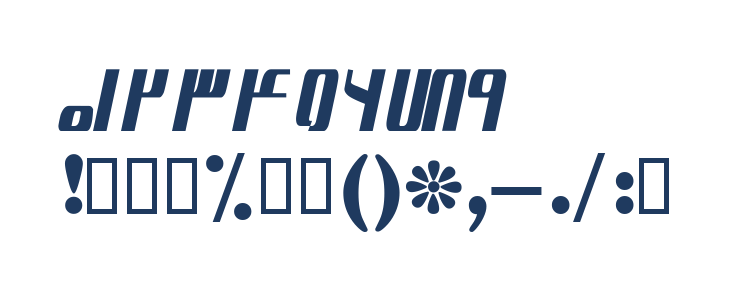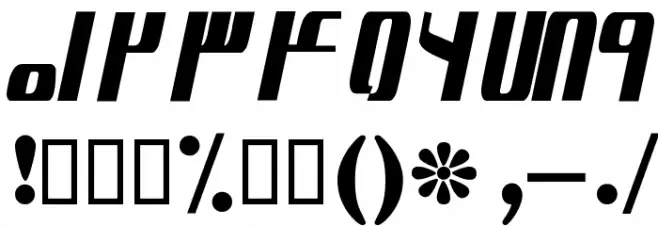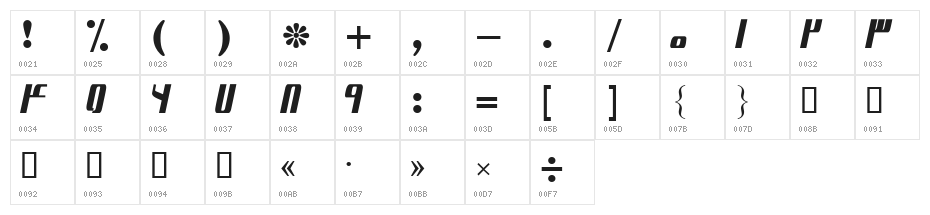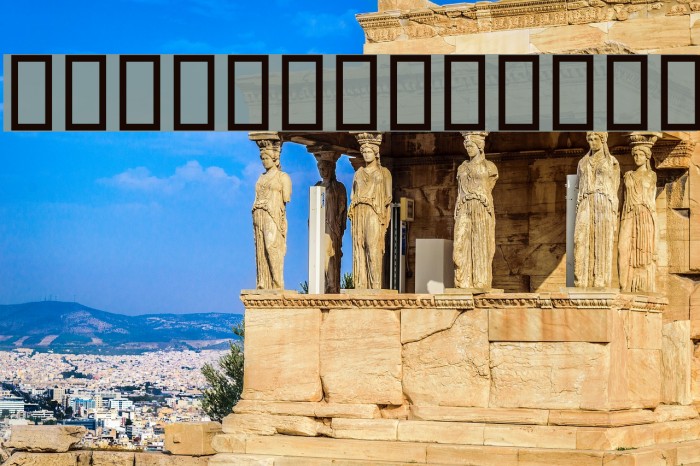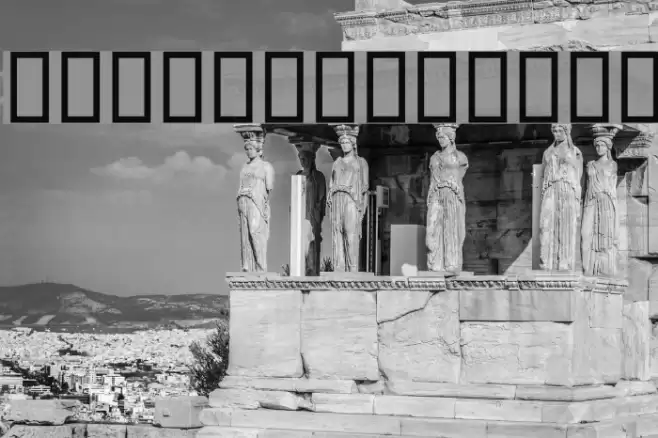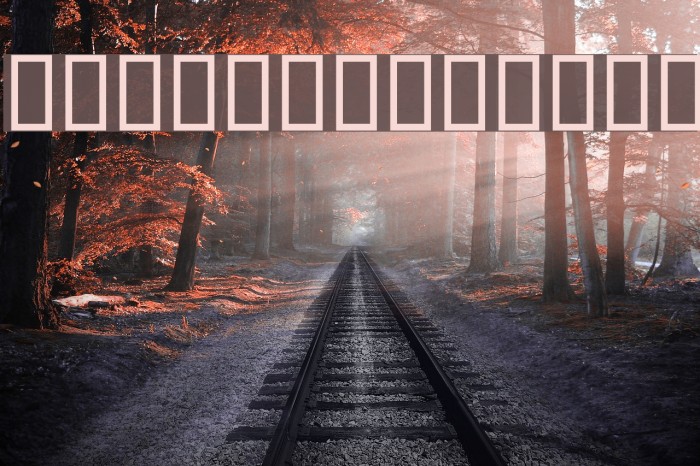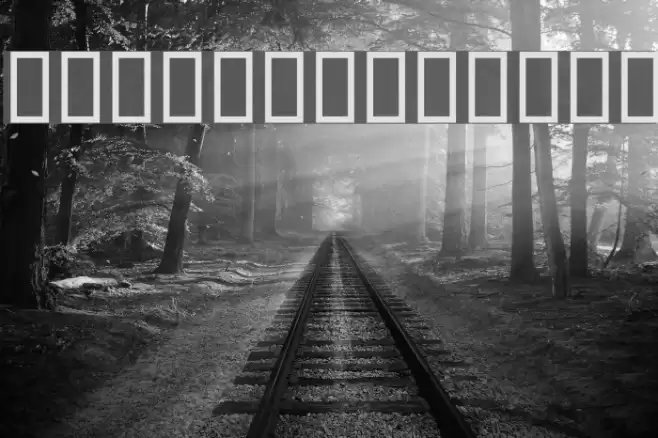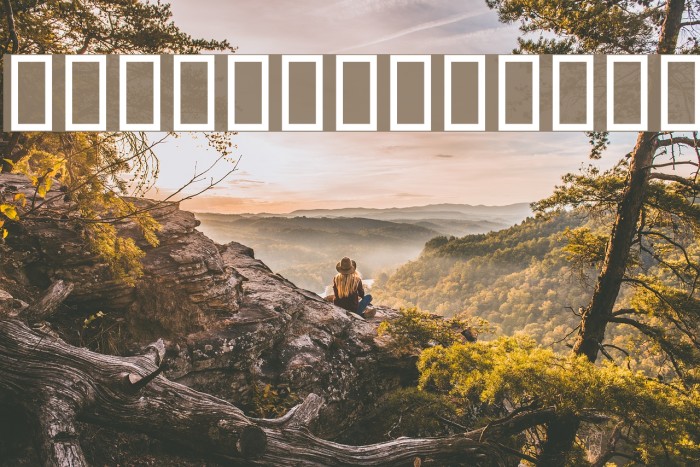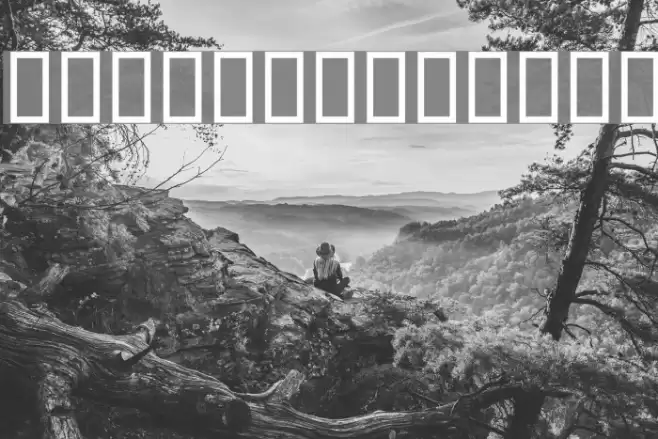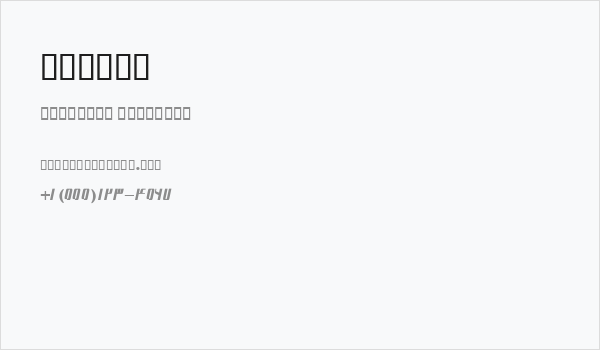
Pegaah Font
Pegaah Description
This font features a bold and dynamic style with a strong presence. The characters are designed with a modern aesthetic, incorporating sharp angles and a slightly condensed form. The uppercase letters are particularly striking, with a futuristic flair that makes them stand out. The numerals and special characters maintain this boldness, ensuring consistency across all glyphs. The font's design is suitable for projects that require a contemporary and assertive look.
Proposed ProjectsIdeal for branding, advertising, posters, and any project that requires a strong, modern typeface.